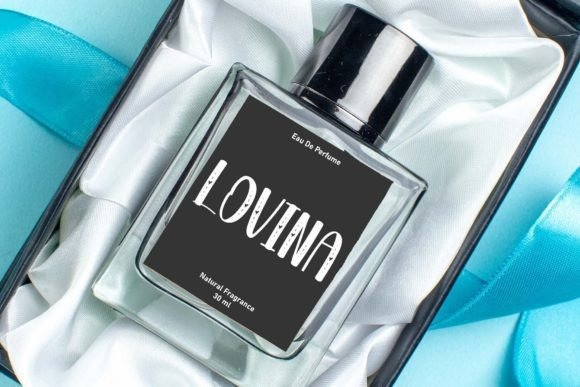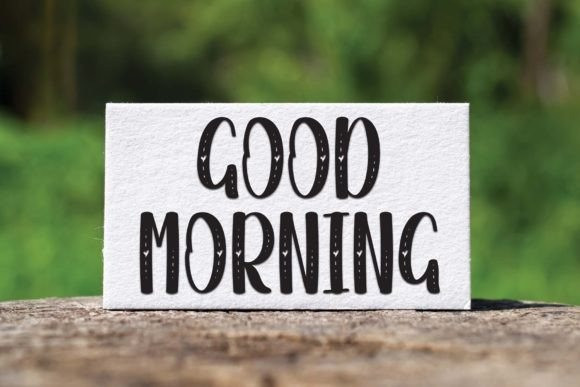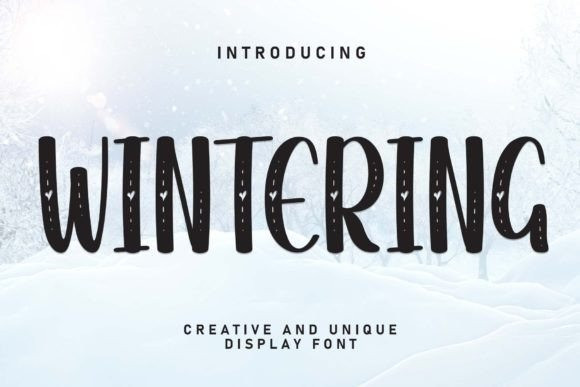
Wintering Font
Wintering Font – This is a cute and friendly handwritten display font. Cute and fun, this font is ideal for writing wedding invitations, cards or any other design that needs a fun touch!